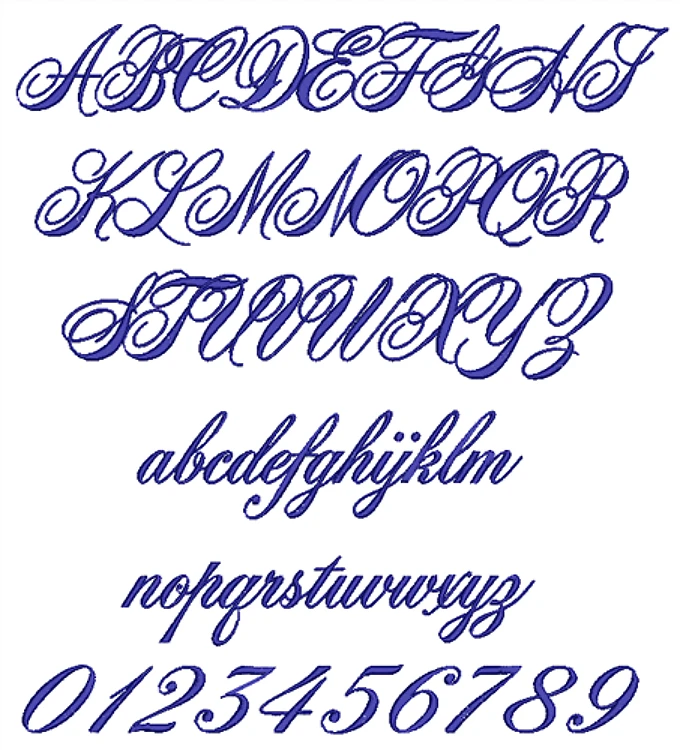
Flowing script machine embroidery font, perfect for adding a decorative touch to napkins and table linens. Displaying both uppercase and lowercase letters with numerals, this font is available in DST, EXP, HUS, JEF, PCS, PES, SEW, XXX, VIP formats.